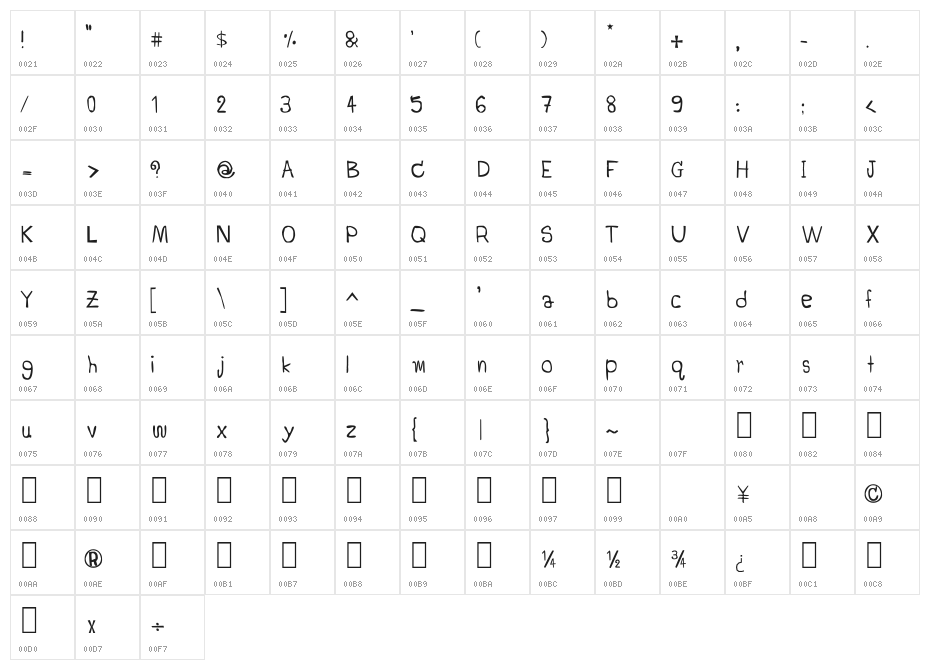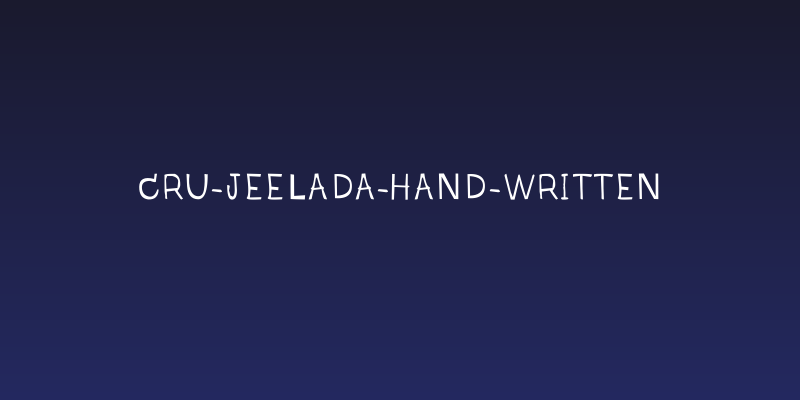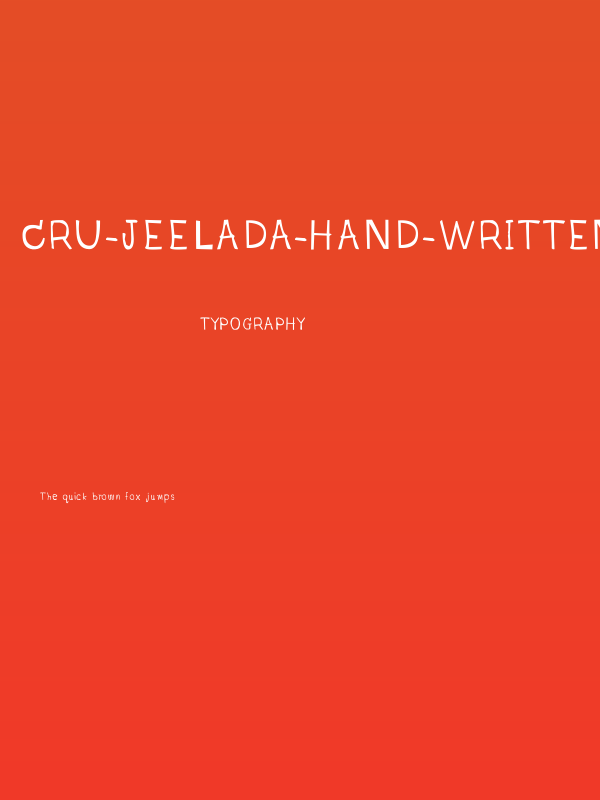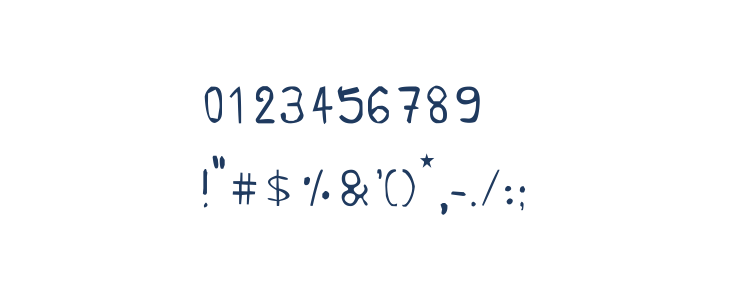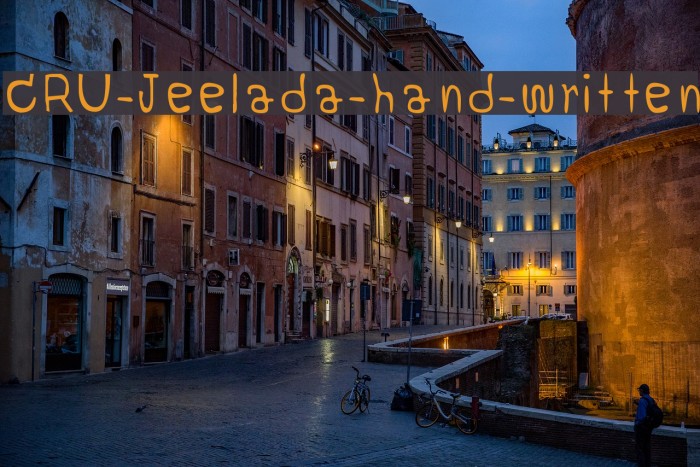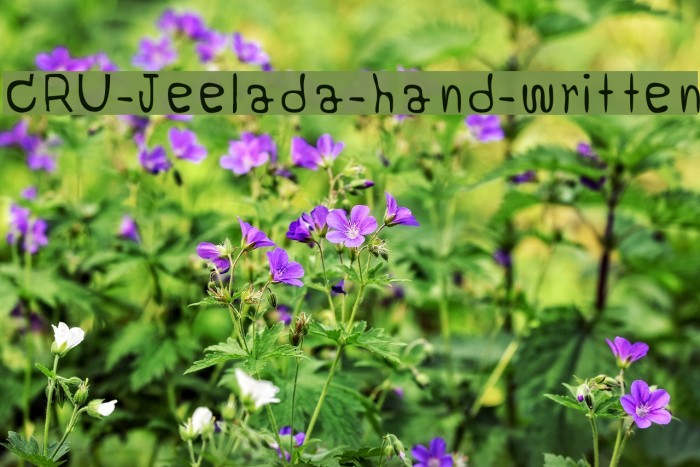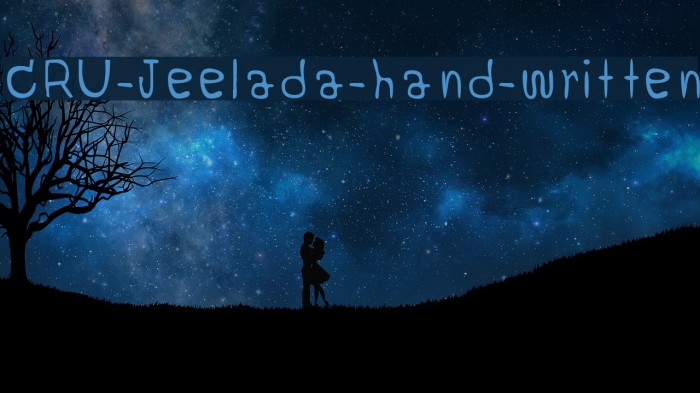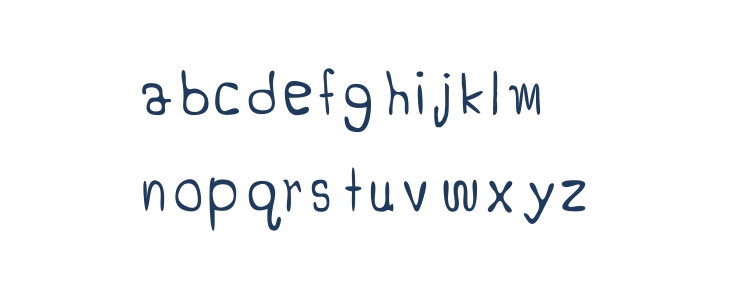
CRU-Jeelada-hand-written Font
CRU-Jeelada-hand-written Description
This font exudes a playful and casual handwritten style, characterized by its irregular and slightly whimsical letterforms. The uppercase letters are bold and slightly uneven, giving a sense of spontaneity and creativity. The lowercase letters maintain this playful nature, with quirky curves and varying heights that add to its charm. Numbers and special characters follow the same informal style, making the font versatile for creative projects. The overall appearance is friendly and approachable, suitable for designs that aim to convey a personal touch.
| Proposed Projects | Ideal for children's books, greeting cards, casual invitations, and playful branding. |